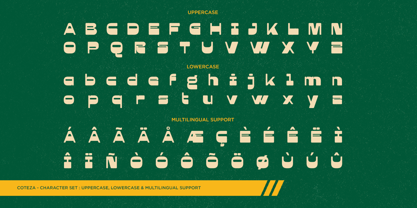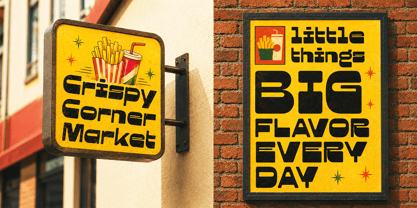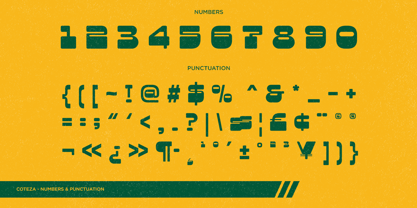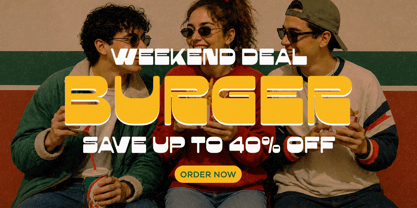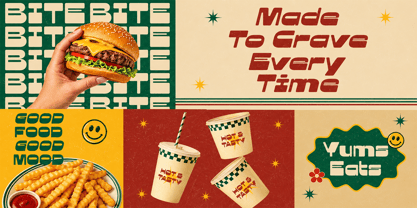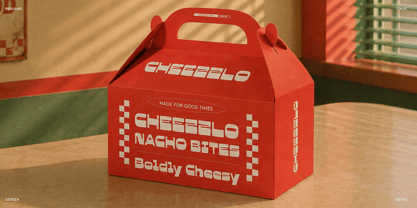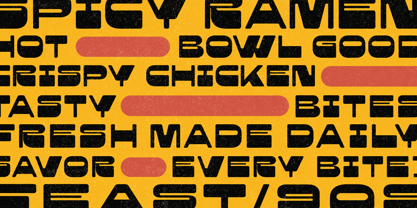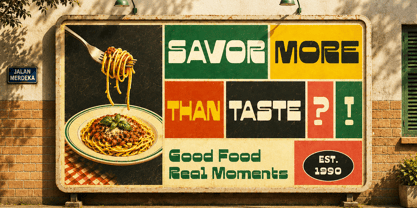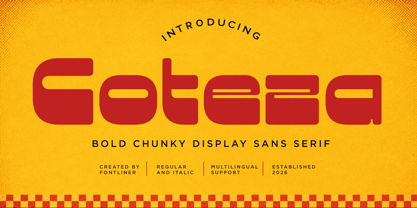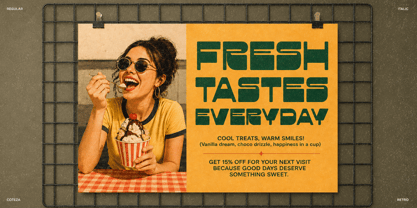
Coteza
von Font Liner
Die Schriftfamilie Coteza wurde von Ghina Luthfiarieska entworfen und von Font Liner veröffentlicht. Coteza enthält 2 Stile und Familienpaketoptionen. Mehr über diese Familie
Coteza is a bold chunky display sans serif font featuring strong geometric shapes and a modern retro character. Its distinctive letterforms deliver high visual impact, making it perfect for food and beverage branding, restaurant graphics, packaging, logos, posters, menus, headlines, advertising, and promotional designs.
Perfect for food branding, restaurant logos, burger packaging, menu designs, posters, signage, advertising, headlines, social media, merchandise, and editorial layouts. Coteza delivers a bold and modern personality that works especially well for food, beverage, and lifestyle projects.
Designer: Ghina Luthfiarieska
Foundry: Font Liner